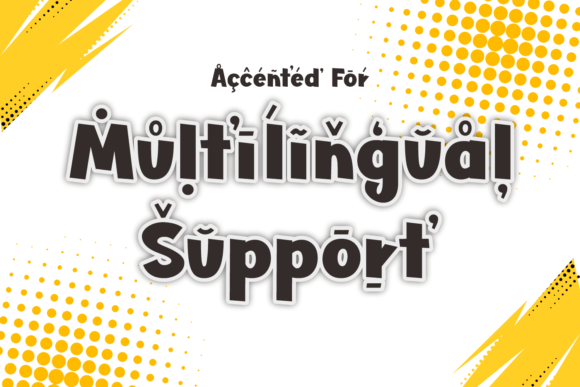
Mickey Ground Font
Mickey Ground is a cute and charming display font. Whimsical and a bit quirky, this font will brighten up each of your designs. Add it confidently to your projects, and you will love the results.